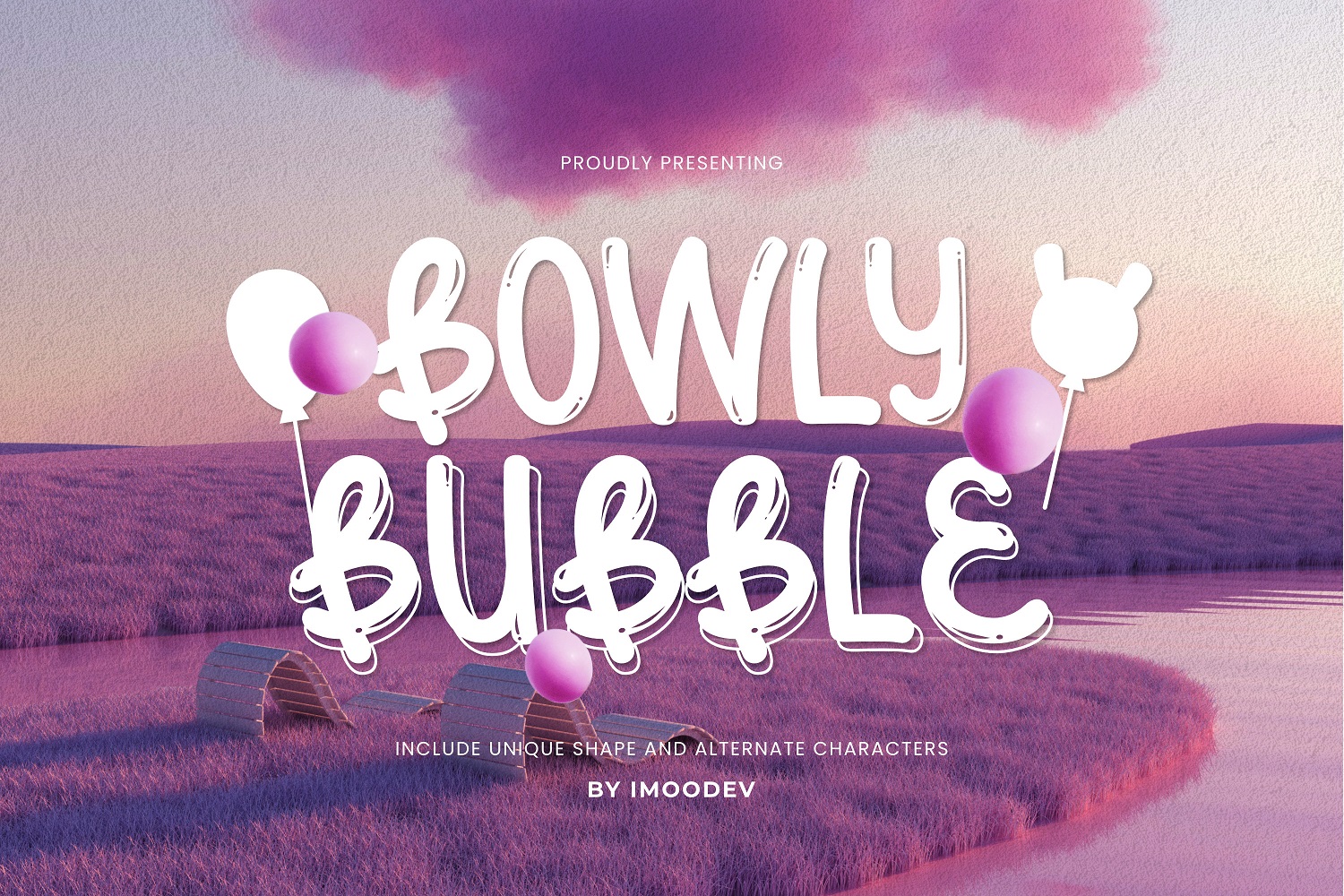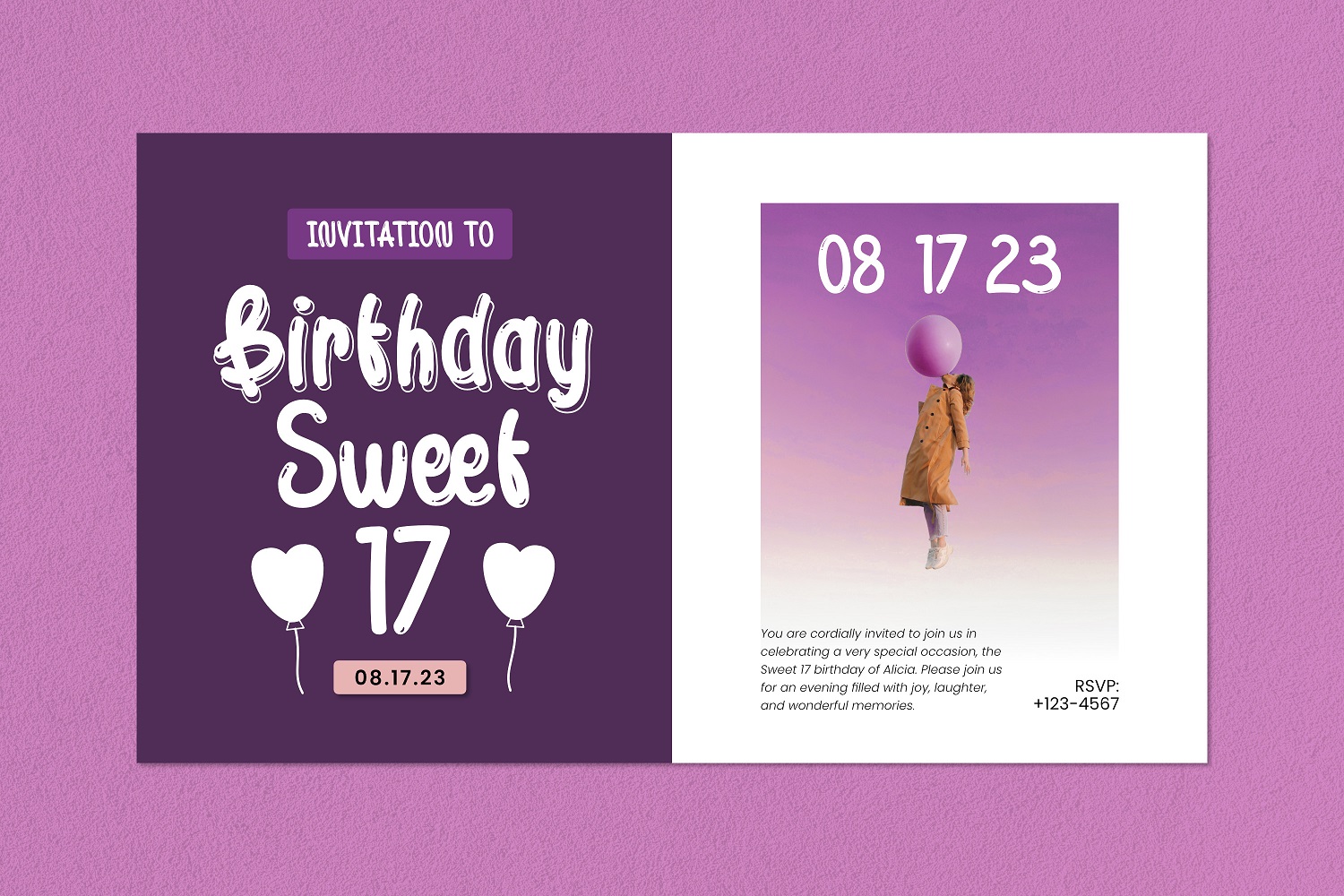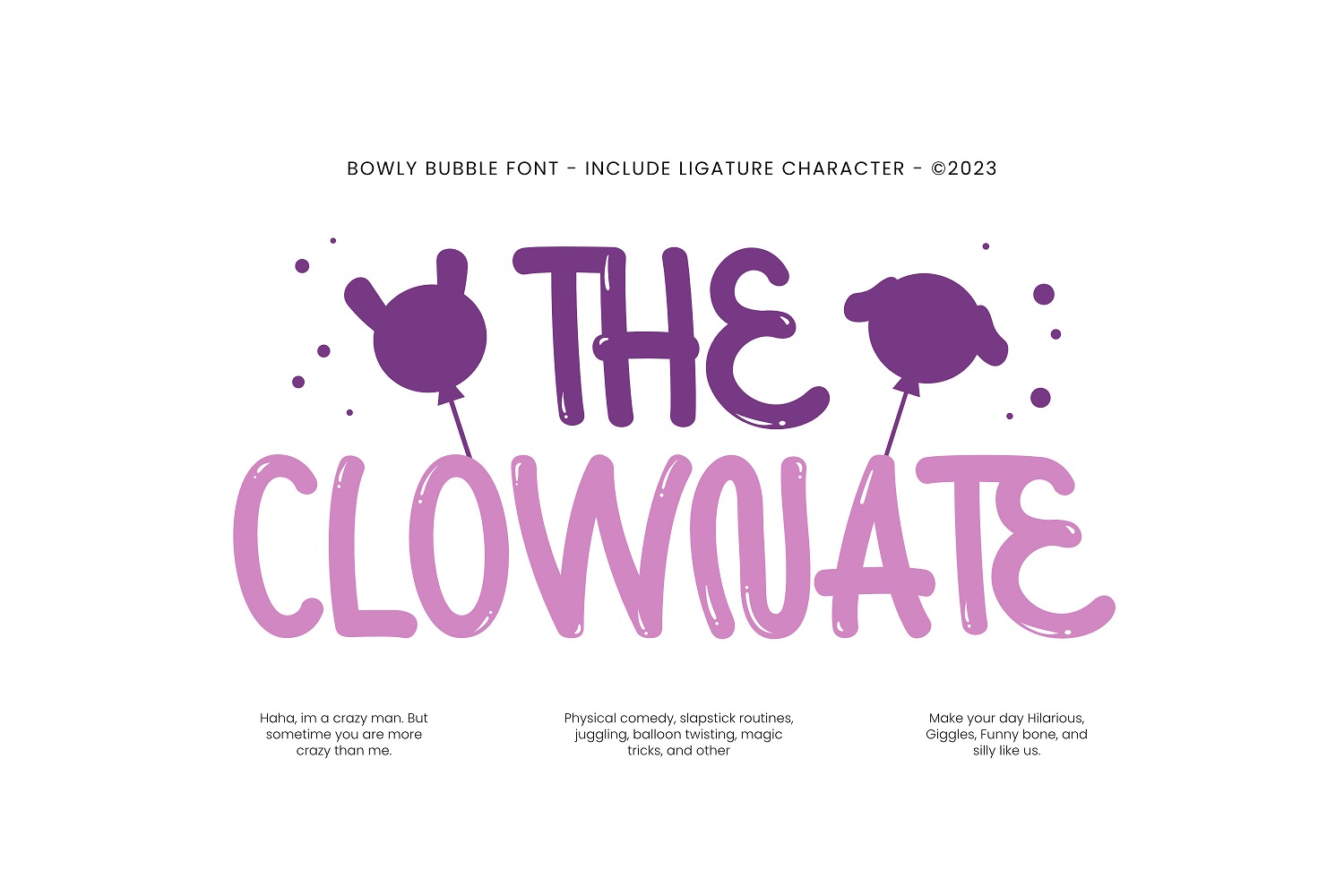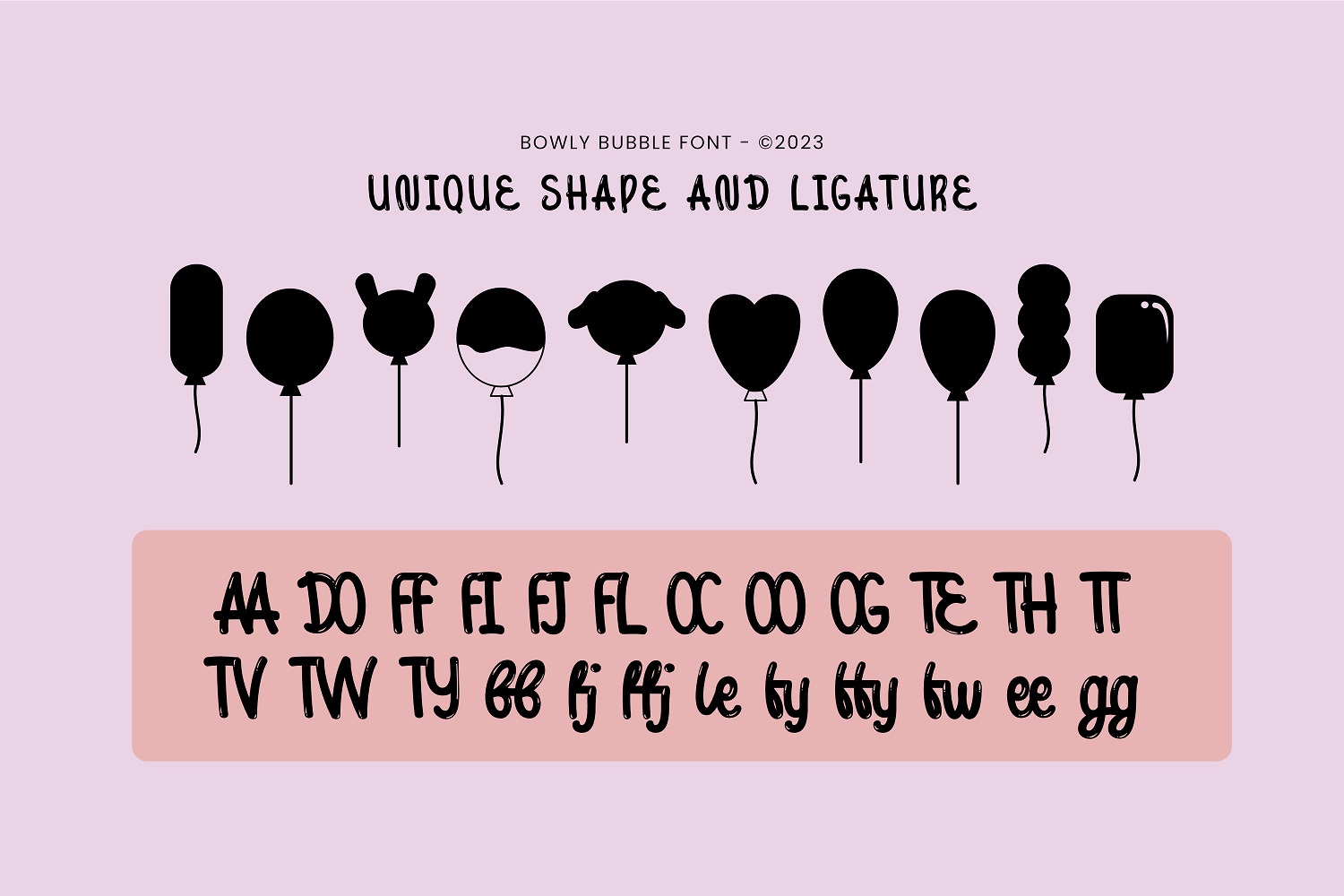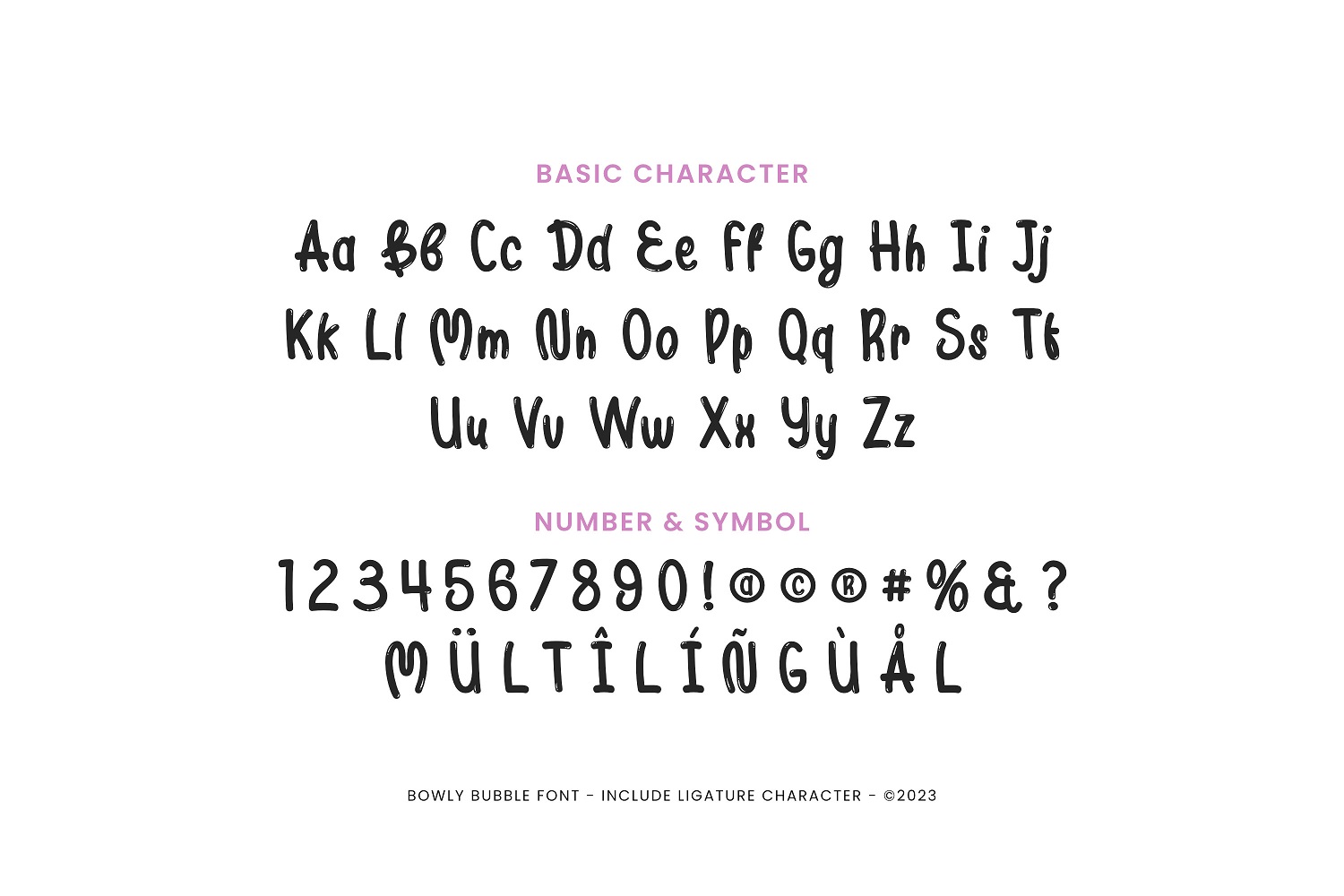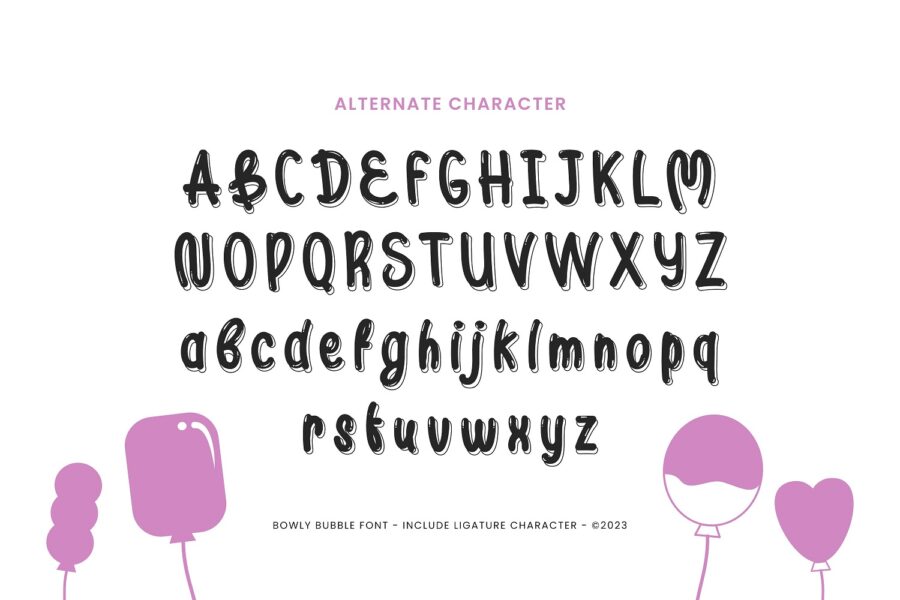
The Bowly Bubble font is a playful and bubbly display typeface designed to bring joy and liveliness into your creative projects. Its bold, rounded strokes with unique balloon-like details give it a fun and festive character, making it perfect for party invitations, children’s products, and cheerful branding. With alternate characters, ligatures, and balloon-themed decorative elements, this font allows for versatile customization, ensuring your designs stand out with a touch of whimsy and charm.
In addition to its eye-catching style, Bowly Bubble includes multilingual support, numbers, punctuation, and fun alternates that mimic the appearance of inflatables or handwritten bubble letters. Its joyful aesthetic makes it ideal for projects like birthday invitations, posters, greeting cards, and playful packaging. Whether you want to create a lighthearted design or emphasize fun and excitement, Bowly Bubble is a versatile font that radiates positivity and creativity.
Bowly Bubble